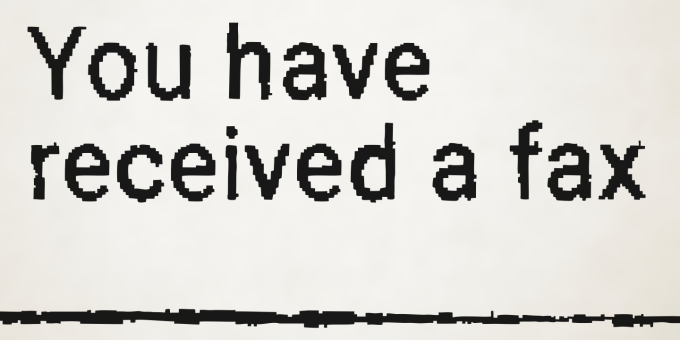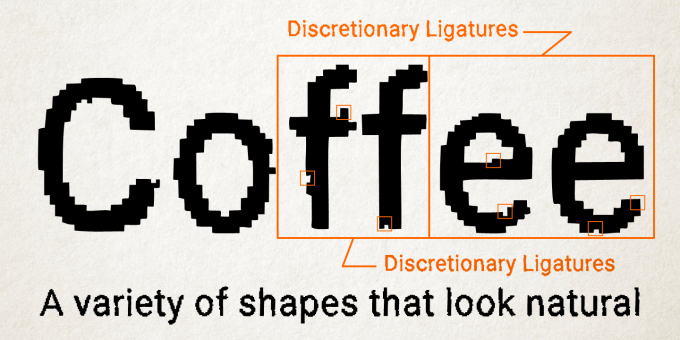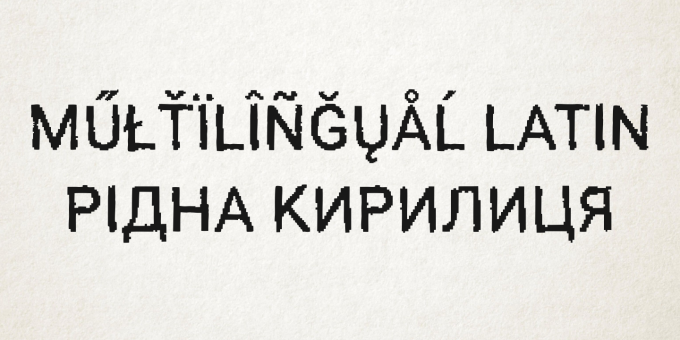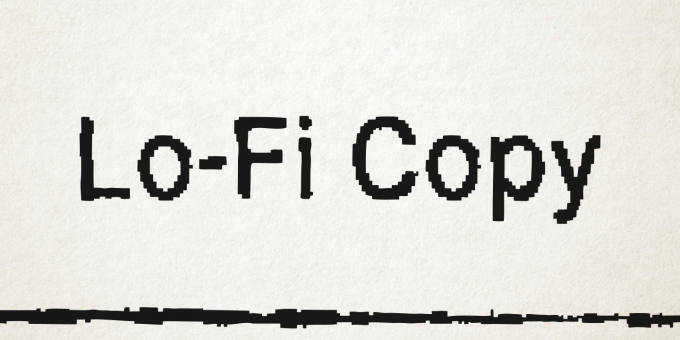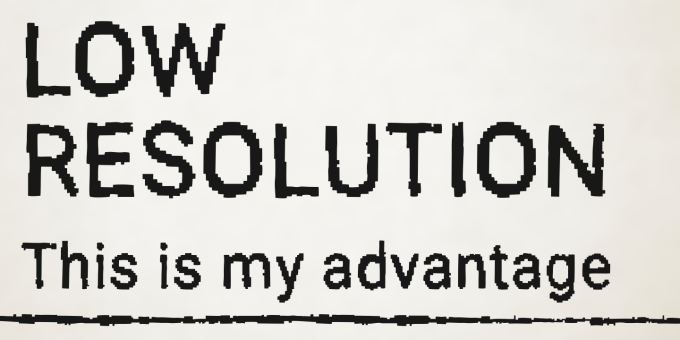
LoFi Copy
Lo-Fi Copy is a good way to add an analog look to your design. Brutal pixels have chaotic errors, like a damaged signal.
Designer: 2D Typo
Publisher: 2D Typo